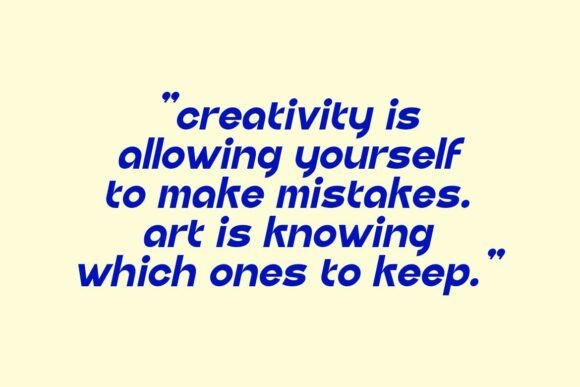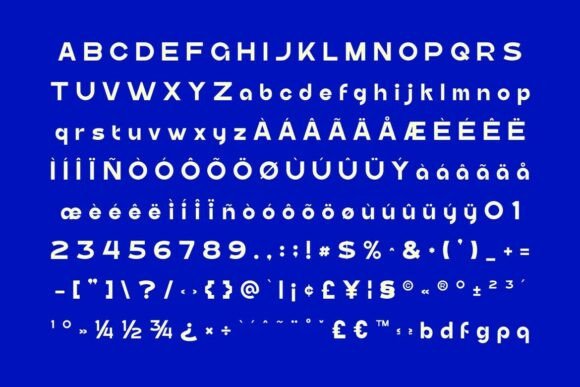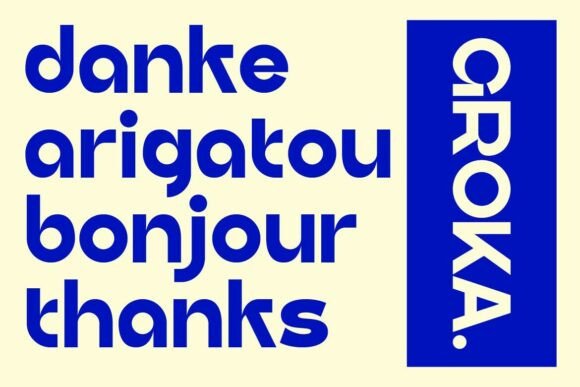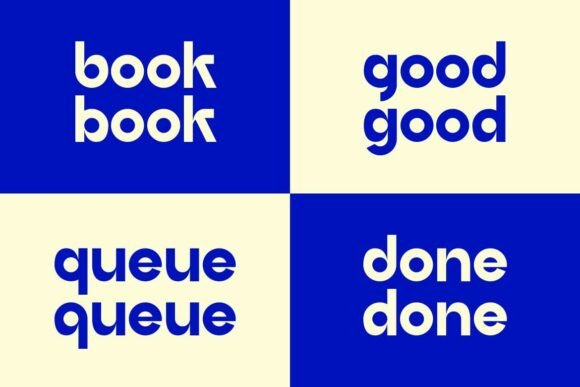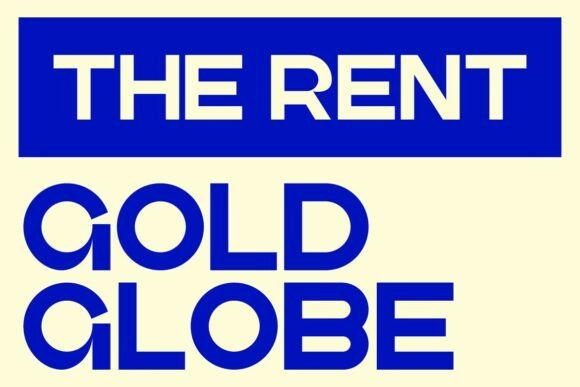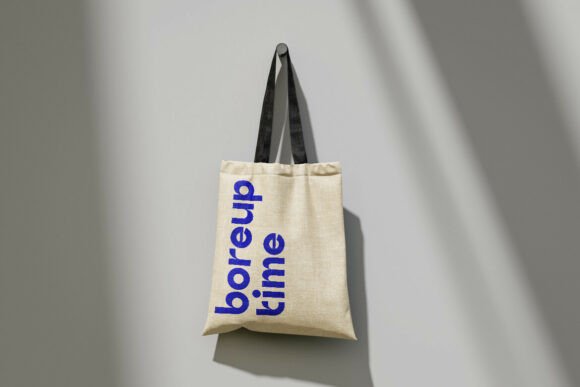
Introducing Groka Font: The Ultimate Modern Sans Serif for Creative Designers
In the world of typography, a font can make or break a design. For designers who value clarity, flexibility, and contemporary aesthetics, Groka Font is the perfect solution. This creative modern sans serif typeface is designed to deliver a professional yet expressive look across a wide range of creative applications.
Clean Construction and Balanced Proportions
Groka Font boasts clean construction and balanced proportions, making it an ideal choice for designers who strive for perfection. The font’s sleek lines and curves create a harmonious visual flow, ensuring that your text is easy to read and understand. Whether you’re designing a website, brochure, or business card, Groka Font provides a solid foundation for your typography needs.
Subtle Character Details for Added Expressiveness
What sets Groka Font apart from other sans serif typefaces is its subtle character details. The font features carefully crafted letterforms with a touch of personality, giving your text a unique and expressive feel. From the slightly rounded edges to the expertly weighted strokes, every detail has been considered to create a font that is both modern and sophisticated.
Versatility Across Creative Applications
Groka Font is designed to be versatile, making it suitable for a wide range of creative applications. Whether you’re working on a:
- Website: Use Groka Font as your primary typeface for a clean and modern look that adapts seamlessly to various screen sizes and devices.
- Print Project: Groka Font shines in print, delivering crisp and clear text for brochures, business cards, and posters.
- Branding Campaign: Establish a strong brand identity with Groka Font, which offers a professional and cohesive look that resonates with your target audience.
Why Choose Groka Font?
With so many fonts available, why choose Groka Font? Here are just a few reasons why designers and crafters love Groka:
- Legibility: Groka Font is designed for maximum legibility, ensuring that your text is easy to read and understand.
- Flexibility: With its clean construction and balanced proportions, Groka Font adapts seamlessly to various design applications.
- Uniqueness: The subtle character details in Groka Font give it a distinctive personality that sets it apart from other sans serif typefaces.
Tips for Using Groka Font Effectively
To get the most out of Groka Font, here are some expert tips:
- Experiment with font sizes: Groka Font looks great in various font sizes, from large headings to small body text.
- Play with line spacing: Adjust the line spacing to create a sense of rhythm and flow in your text.
- Combine with other fonts: Pair Groka Font with other fonts to create a unique and visually appealing typography hierarchy.
Groka Font is a powerful tool for designers and crafters who value clarity, flexibility, and contemporary aesthetics. With its clean construction, balanced proportions, and subtle character details, Groka Font delivers a professional yet expressive look across a wide range of creative applications. Whether you’re designing a website, print project, or branding campaign, Groka Font is the perfect choice for adding a touch of modern sophistication to your typography.